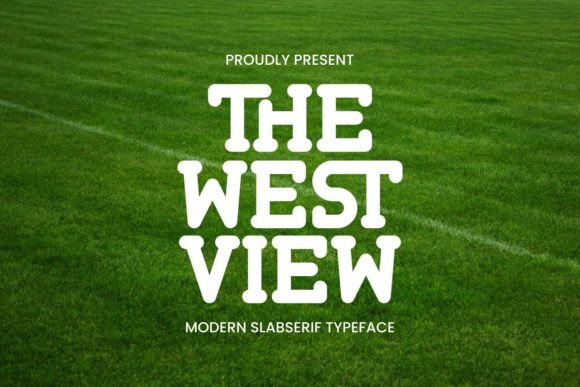
**The Westview Font – An Ode to Sports, Strength, and Style**
In the vast world of typography, few fonts capture the essence of power, energy, and resilience like The Westview Font. This stunning slab serif font, crafted by the talented team at Masyafi Studio, is not just a collection of letters; it's a celebration of sports, a tribute to strength, and a testament to the beauty of bold expression.
**A Font Rooted in Athleticism**
The Westview Font draws its inspiration from the world of sports, where passion, power, and perseverance collide. Its bold lines and sharp angles evoke the determination of athletes as they strive for victory. This font is not merely a tool for communication; it's a symbol of the indomitable human spirit.
**Designed for Champions**
With its inherent strength and athletic charm, The Westview Font is the perfect choice for a wide range of sports-related projects. It's the ideal font for creating logos that command attention, t-shirts that exude team spirit, and jerseys that ignite a sense of unity. Its versatility extends beyond the realm of sports, making it equally suitable for stickers, labels, and even jersey numbers.
**Bring Your Creative Vision to Life**
The Westview Font is more than just a sports-themed font. Its versatility extends to a vast array of creative projects, allowing you to bring your unique vision to life. Whether you're designing posters for a local sports tournament, creating graphics for a sports magazine, or simply seeking a font that radiates strength and character, The Westview Font is your perfect companion.
**A Font That Inspires and Empowers**
The Westview Font is more than just a collection of glyphs; it's a catalyst for creativity, a spark that ignites the imagination. Its bold lines and confident curves inspire you to think big, to push boundaries, and to create designs that leave a lasting impression. Whether you're a seasoned designer or just starting out, The Westview Font will empower you to unleash your full creative potential.
**Experience the Thrill of Victory with The Westview Font**
Join the ranks of designers who have harnessed the power of The Westview Font to create designs that resonate with strength, passion, and style. Let your creativity soar as you explore the endless possibilities of this remarkable font. From dynamic logos to eye-catching t-shirts, from bold posters to captivating social media graphics, The Westview Font will elevate your designs to new heights.